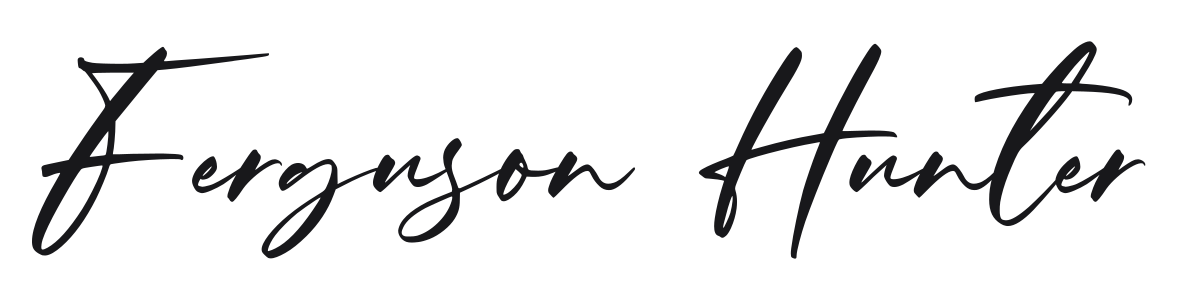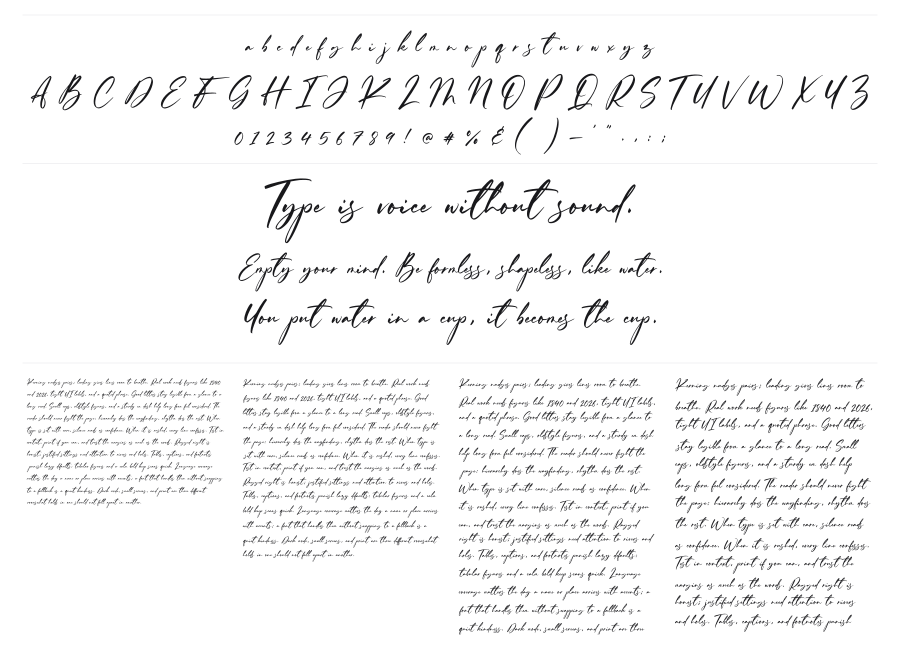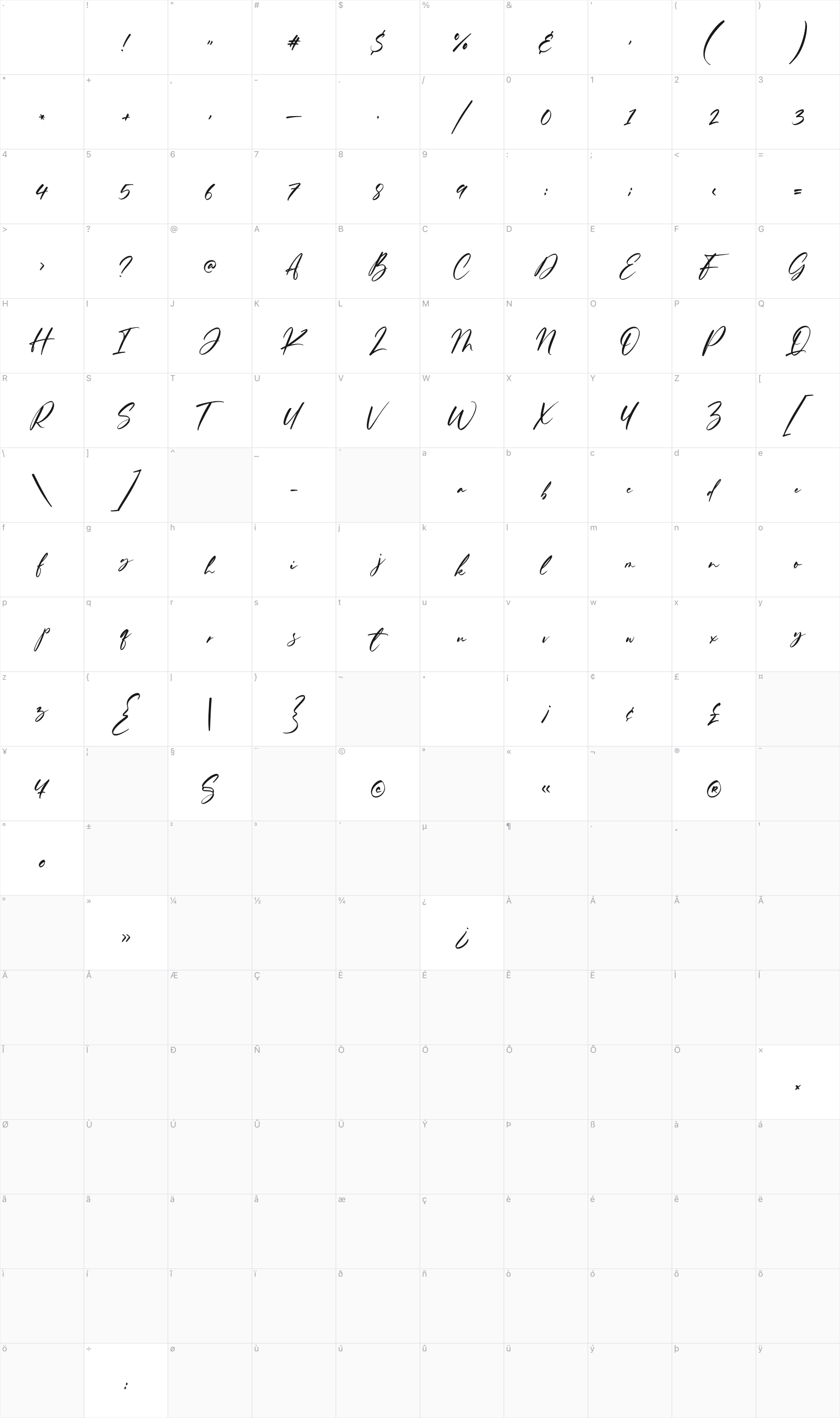
Ferguson Hunter
Ferguson Hunter is a flowing casual script with generous stroke contrast and sweeping calligraphic tails. The connected letters move with natural rhythm, balancing an effortless handwritten feel against a polished, editorial edge. Strong for logos, wedding stationery, and any branding that calls for warmth with style.